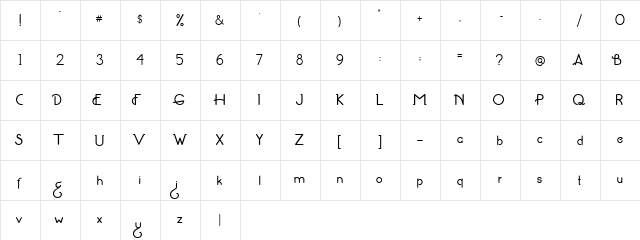
Fatjisti Regular
Design Context for Fatjisti Typeface
Fatjisti takes a measured approach to typography — its balanced proportions and neutral character make it a reliable workhorse for both digital and print work.